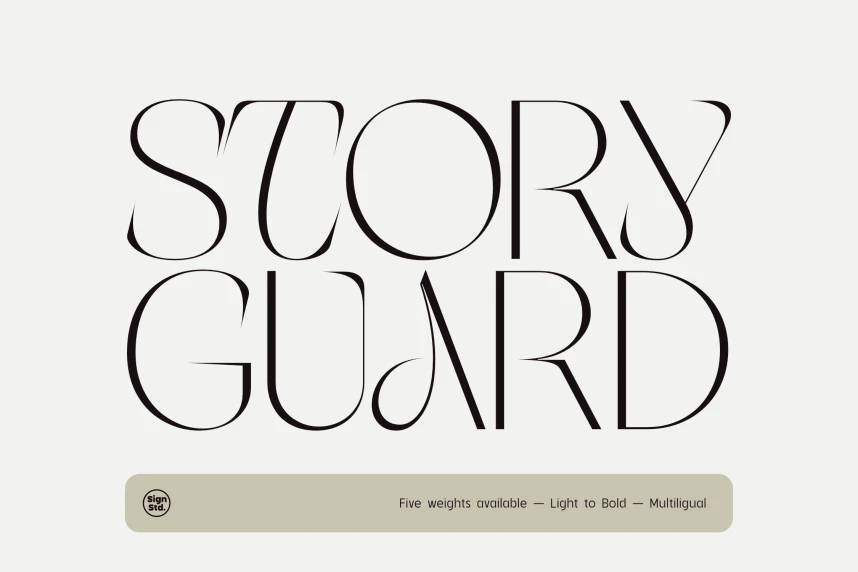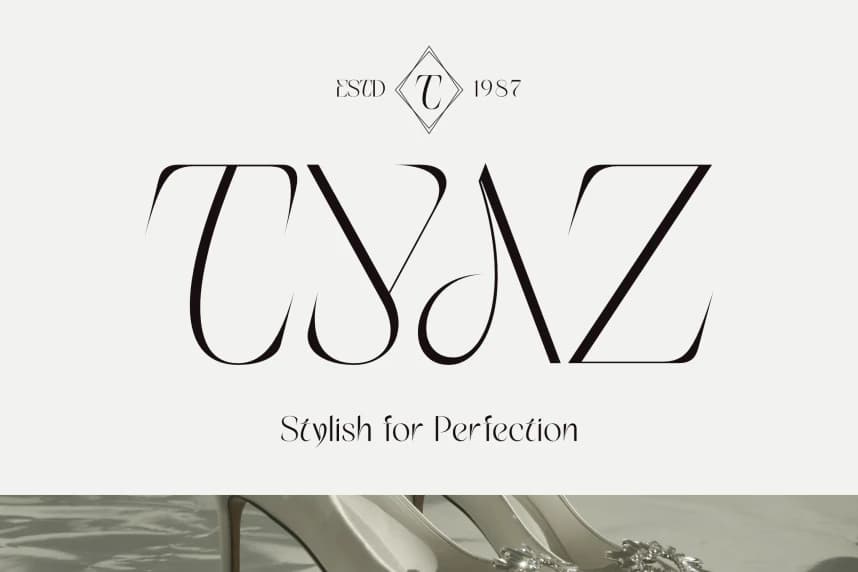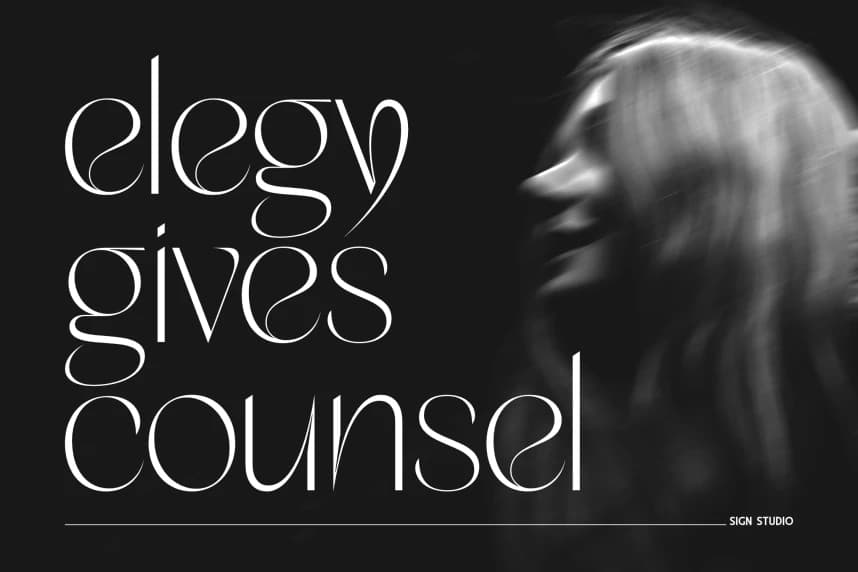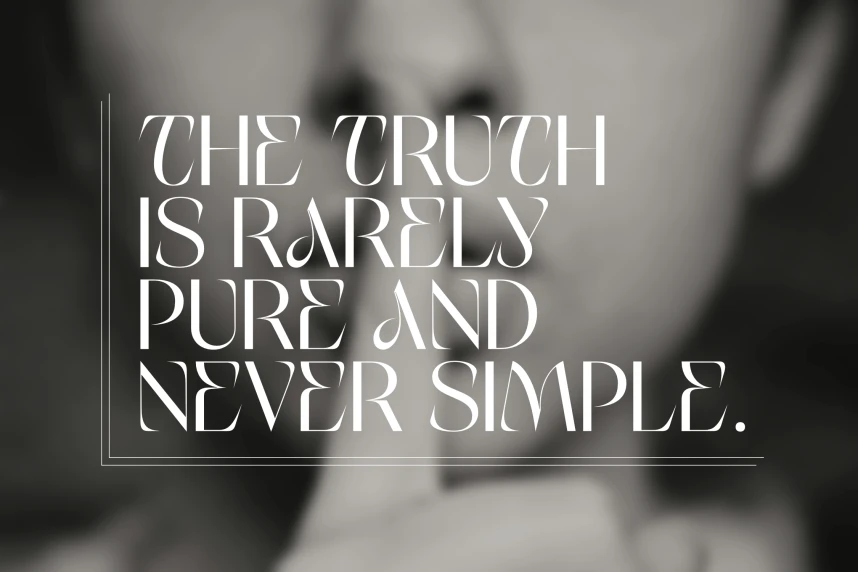
Story Guard Typeface
Story Guard Typeface — Contemporary Display Sans. Story Guard is a contemporary display sans crafted for those who value clarity, proportion, and quiet strength. Defined by its clean geometry and subtle humanist nuances